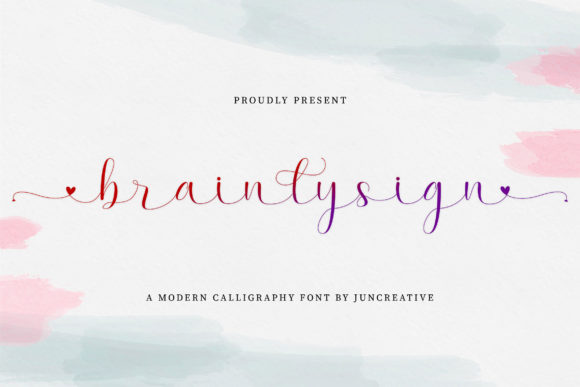
**Introducing Brainlysign: The Script Font That Will Captivate Your Senses**
In the realm of typography, Brainlysign emerges as a shining star, a script font that dances across your screen with captivating elegance. Its light, handwritten strokes evoke the beauty of a delicate brush, leaving a trail of artistic charm in its wake. With Brainlysign, you hold the key to unlocking a world of creative possibilities, transforming your designs into masterpieces that resonate with emotion and style.
**A Stroke of Artistic Genius**
Brainlysign transcends the boundaries of ordinary fonts. It's not just a collection of letters; it's an artistic expression, a testament to the power of creativity. Each character dances with a unique rhythm, flowing seamlessly into the next, creating an enchanting visual symphony. Whether you're crafting logos, branding materials, or adding a touch of elegance to your social media posts, Brainlysign will elevate your designs to new heights.
**The Perfect Harmony of Form and Function**
More than just a pretty face, Brainlysign is a font crafted with both beauty and functionality in mind. Its PUA encoding grants you effortless access to a treasure trove of glyphs and ligatures, empowering you to unleash your creativity without limits. With Brainlysign, you can effortlessly add intricate embellishments, flourishes, and swashes to your designs, transforming them into works of art that captivate and inspire.
**A Font with a Story to Tell**
Every font has a story to tell, and Brainlysign's is one of passion, creativity, and the pursuit of excellence. Created by the talented Juncreative, Brainlysign embodies the essence of artistic expression, capturing the essence of handwritten beauty and transforming it into a digital masterpiece. Its unique aesthetic, lovingly crafted by a master of the craft, will add a touch of magic to your designs, leaving a lasting impression on your audience.
**Experience the Brainlysign Difference**